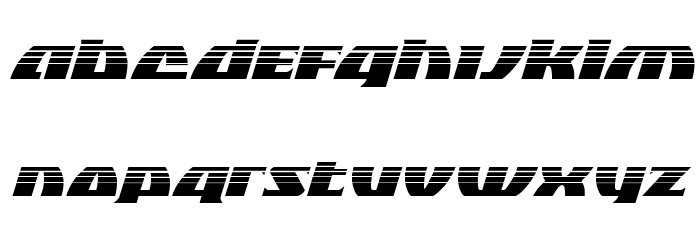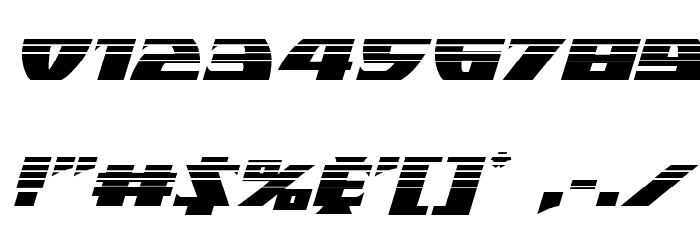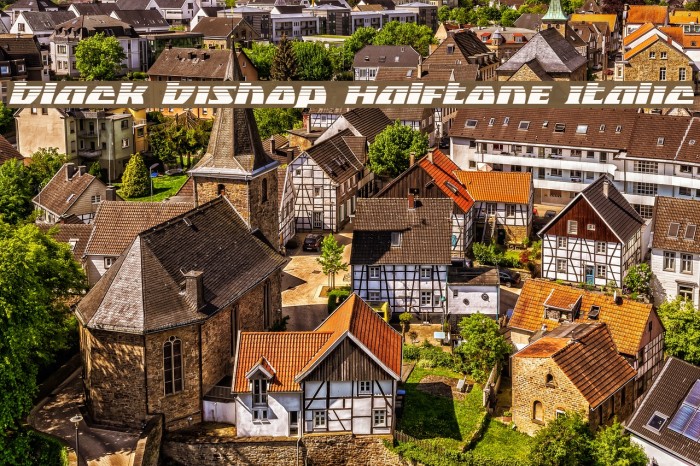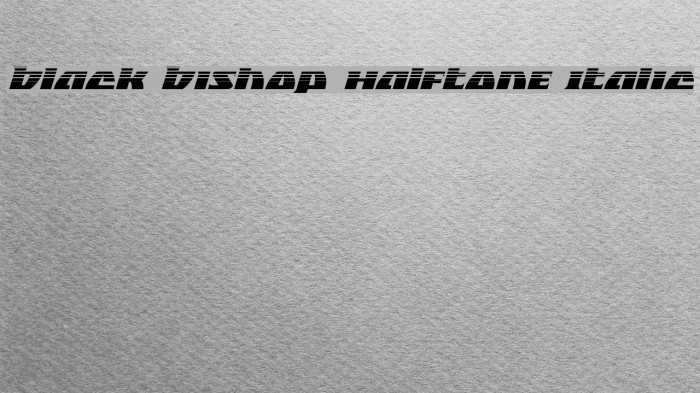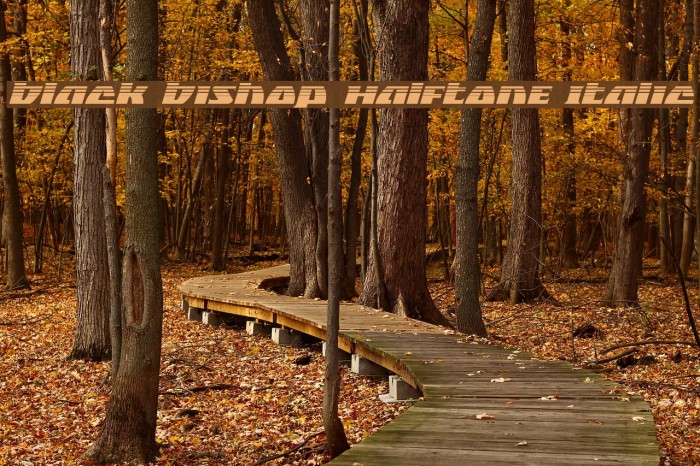
Black Bishop Halftone Italic Font
This font features a bold, italicized style with a distinctive halftone pattern that creates a dynamic and eye-catching effect. The characters are designed with a strong geometric structure, incorporating horizontal lines that give a sense of movement and energy. The uppercase and lowercase letters maintain a consistent style, with sharp angles and a futuristic appearance. The numbers and special characters are equally bold, ensuring uniformity across all text elements. This font's unique design makes it ideal for projects that require a modern and edgy look.
A bold, italicized font with a halftone pattern and geometric structure.
- Proposed Projects: Ideal for branding, posters, album covers, and any design requiring a modern, dynamic aesthetic.